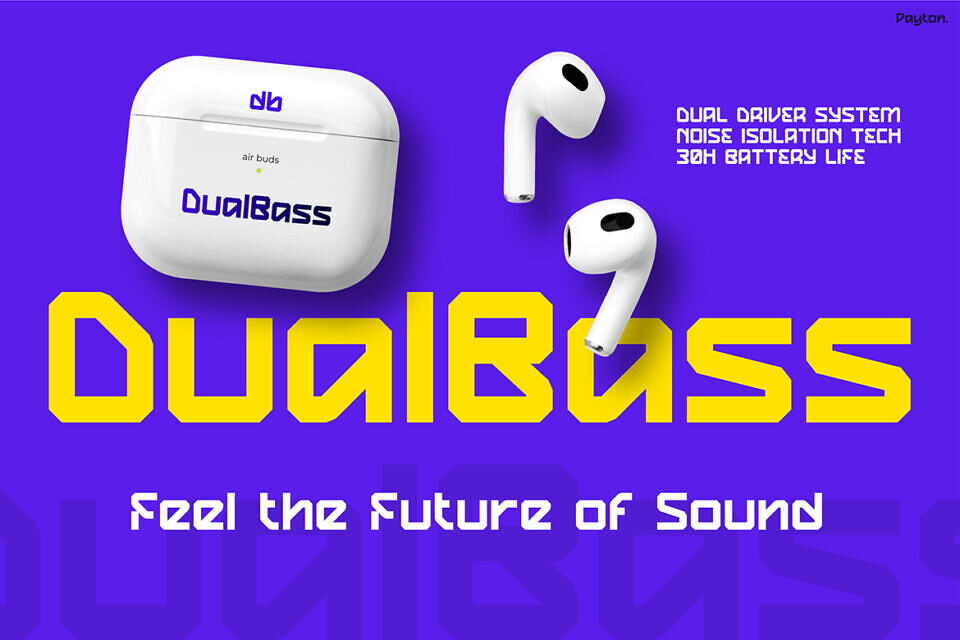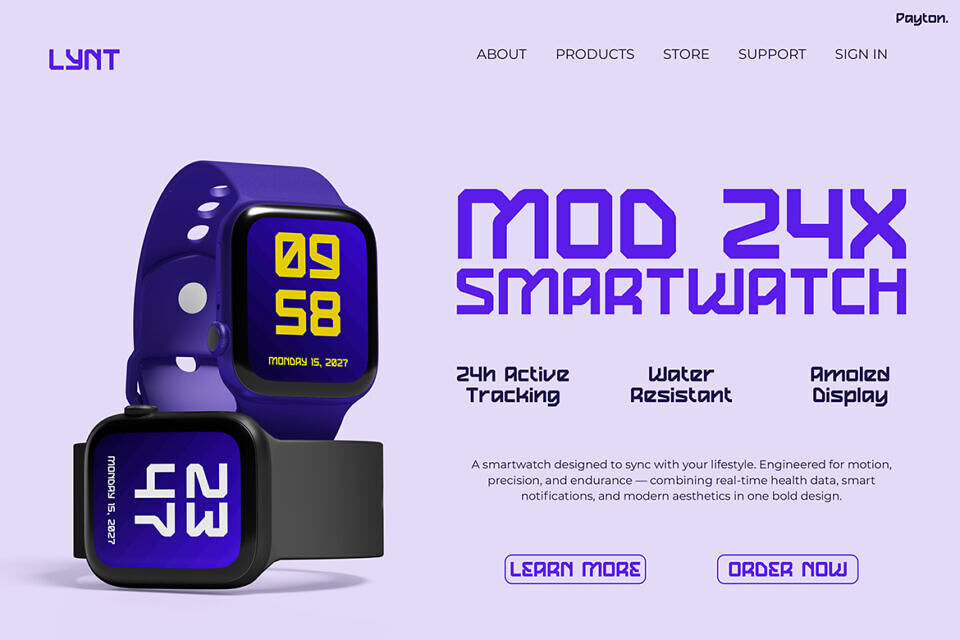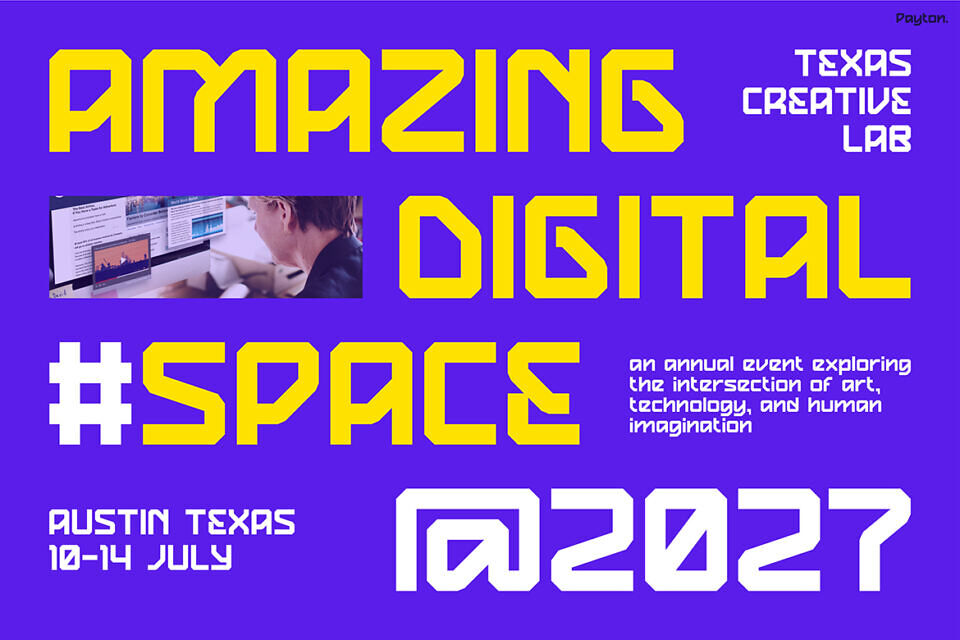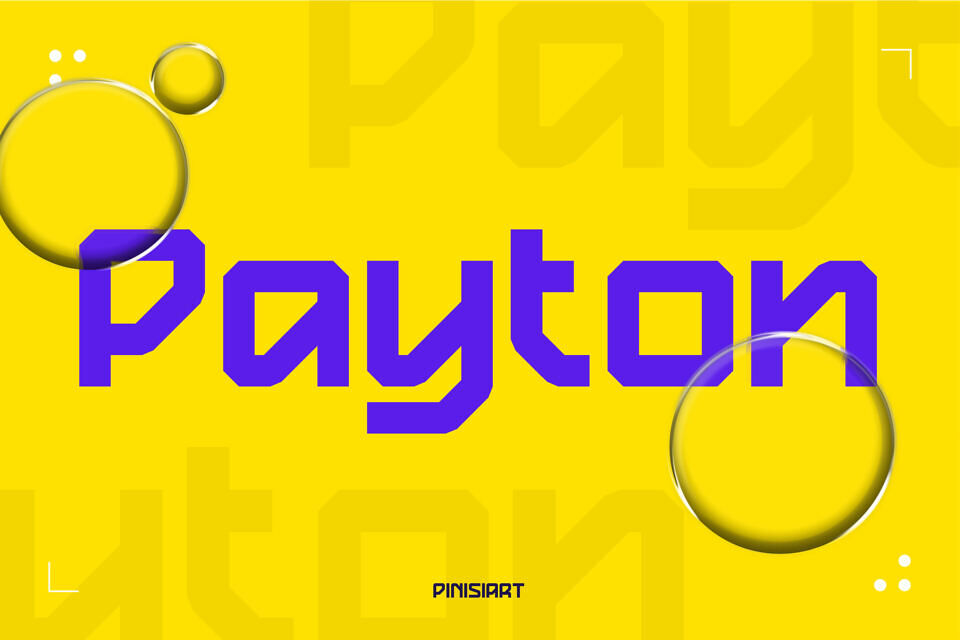
Payton Font
Payton is a bold, futuristic font that embodies innovation and digital sophistication. Its sharp geometric letterforms and balanced contrast between clean lines and rounded edges create a sleek yet approachable aesthetic.
Inspired by modern technology, VR design, and minimalist architecture, Payton reflects progress and confidence in every detail. Perfect for futuristic branding, social media visuals, posters, and app interfaces, this font delivers precision, movement, and high-tech elegance — making your message stand out with modern creativity and forward-thinking style.